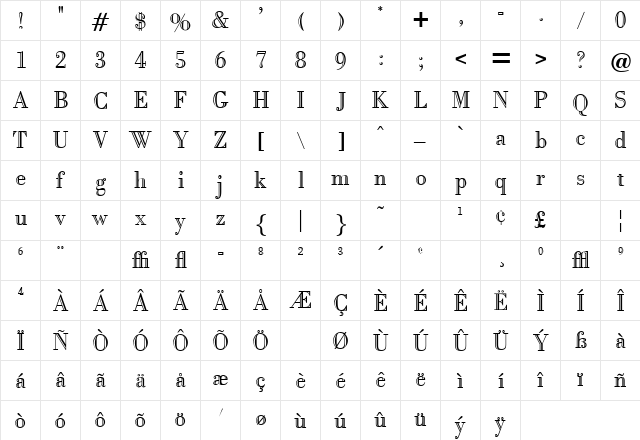
OBodoni-Open Open Font Preview
OBodoni-Open Open
OBodoni-Open Open Font Details
Design Context for OBodoni-Open Typeface
OBodoni-Open takes a measured approach to typography — its balanced proportions and neutral character make it a reliable workhorse for both digital and print work.